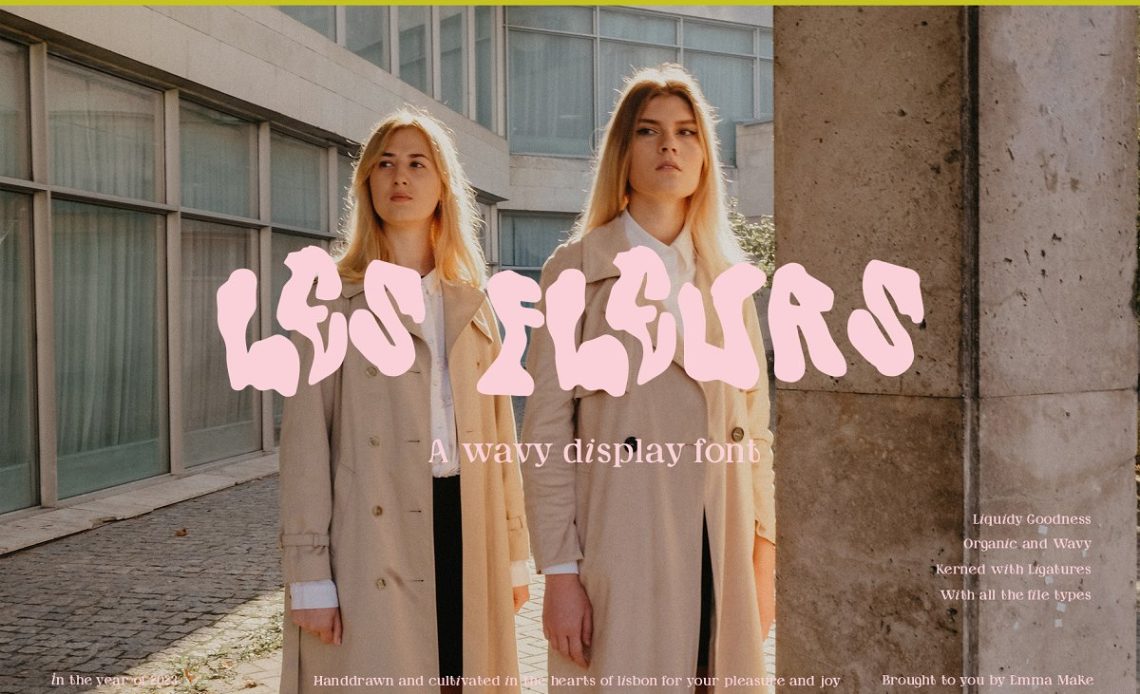
Introducing Les Fleurs, the wavy fluid font that will bring your typography logo to life! Created by the talented Emma Make, this sans serif font is the perfect choice for those looking to make a bold statement with their designs.
Les Fleurs is not your average font. It is modern, characterful, and exudes a sense of creativity that will captivate your audience. With its unique wavy style, this font allows you to express yourself fully and adds a touch of playfulness to any project.
But that's not all! We know that finding the right combination of fonts can be a challenge. That's why we've taken the guesswork out of it for you. In this collection, we have paired Les Fleurs with two other stunning fonts - Mystic and Achilles. These fonts complement each other perfectly, creating a harmonious and visually appealing combination that will take your designs to the next level.
Les Fleurs is not just visually stunning, it is also incredibly versatile. Whether you're working on a logo, packaging, or any other design project, this font will elevate your work and make it stand out from the crowd. Its fluid nature adds a dynamic element to your designs, making them truly eye-catching.
When you choose Les Fleurs, you're not just getting a font, you're getting a piece of art. Emma Hall has poured her heart and soul into creating this masterpiece, and it shines through in every letter. Rest assured, your designs will be one-of-a-kind and will leave a lasting impression on your audience.